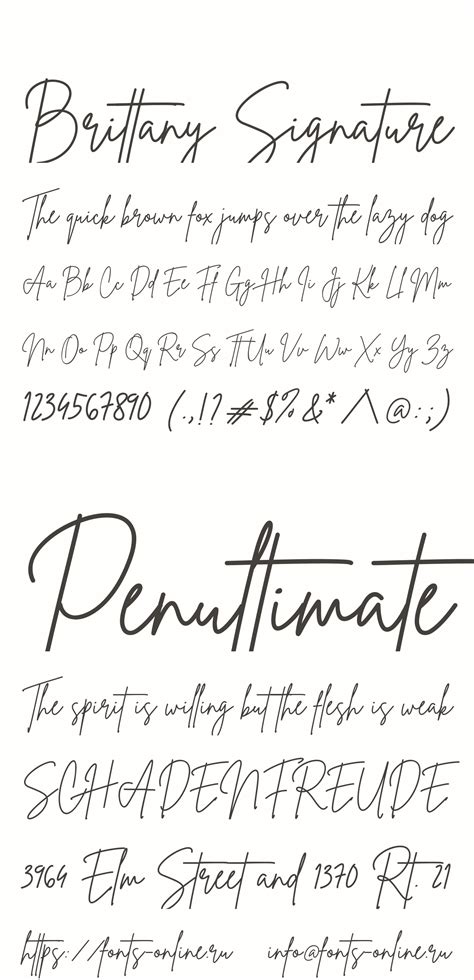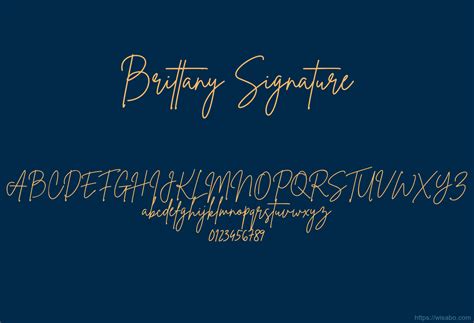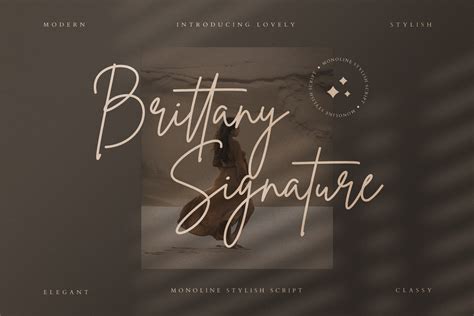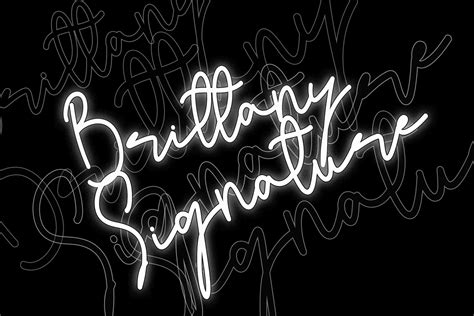
In the world of digital design, typography plays a crucial role in setting the tone and style of any project. One font that has gained significant attention for its elegance and versatility is the Brittany Signature Font. This font is not just a tool for designers; it is a statement of sophistication and creativity. Whether you are designing a logo, creating a wedding invitation, or crafting a brand identity, the Brittany Signature Font can add a touch of class and uniqueness to your work.
Understanding the Brittany Signature Font
The Brittany Signature Font is a handwritten script font that mimics the natural flow and personal touch of handwritten text. It is designed to evoke a sense of warmth and intimacy, making it perfect for projects that require a personal and inviting feel. The font's elegant curves and delicate strokes make it stand out, especially in designs that aim to convey a sense of luxury and refinement.
Key Features of the Brittany Signature Font
The Brittany Signature Font comes with a range of features that make it a favorite among designers. Some of the key features include:
- Handwritten Style: The font's handwritten style gives it a personal and authentic feel, making it ideal for invitations, greeting cards, and other personal projects.
- Elegant Design: The elegant curves and delicate strokes of the font add a touch of sophistication to any design, making it perfect for high-end branding and luxury products.
- Versatility: Despite its elegant design, the Brittany Signature Font is versatile enough to be used in a variety of projects, from logos to social media graphics.
- Easy to Read: Despite its intricate design, the font remains easy to read, ensuring that your message is conveyed clearly.
Applications of the Brittany Signature Font
The Brittany Signature Font is incredibly versatile and can be used in a wide range of applications. Here are some popular uses:
Wedding Invitations
Wedding invitations are a perfect canvas for the Brittany Signature Font. Its elegant and personal style makes it ideal for conveying the warmth and intimacy of a wedding celebration. Whether you are designing a traditional invitation or a modern one, the Brittany Signature Font can add a touch of sophistication.
Branding and Logos
For businesses looking to create a unique and memorable brand identity, the Brittany Signature Font is an excellent choice. Its elegant design can help your brand stand out, especially in industries that value luxury and refinement. Whether you are designing a logo, business card, or packaging, the Brittany Signature Font can add a touch of class.
Social Media Graphics
Social media graphics often require a personal and inviting touch. The Brittany Signature Font's handwritten style makes it perfect for creating engaging and eye-catching graphics. Whether you are designing a post for Instagram, Facebook, or Twitter, the Brittany Signature Font can help your content stand out.
Greeting Cards and Invitations
Greeting cards and invitations are another great application for the Brittany Signature Font. Its personal and inviting style makes it ideal for conveying warmth and intimacy. Whether you are designing a birthday card, holiday greeting, or party invitation, the Brittany Signature Font can add a touch of elegance.